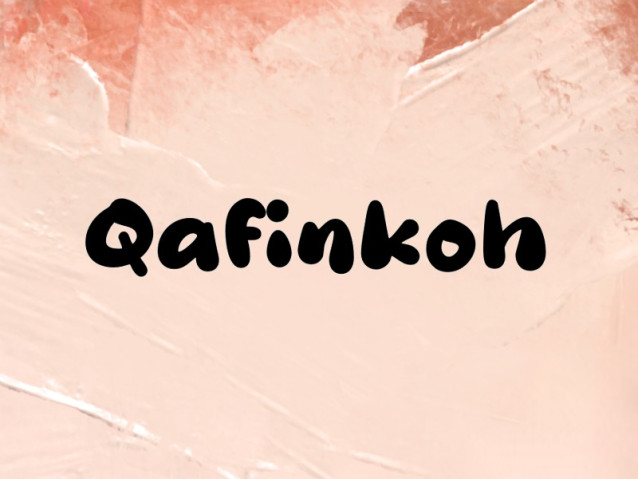
Qafinkoh Font
Qafinkoh Font is a simple and modern display font suitable for quotes, logos, headings, titles, and many more. Use it on any of your creative projects, and your designs will become outstanding!